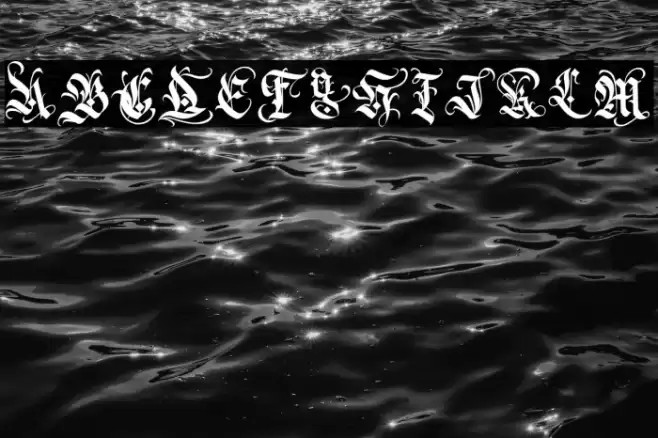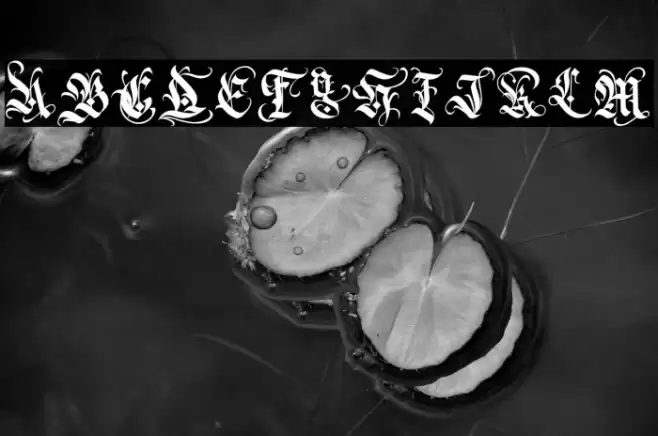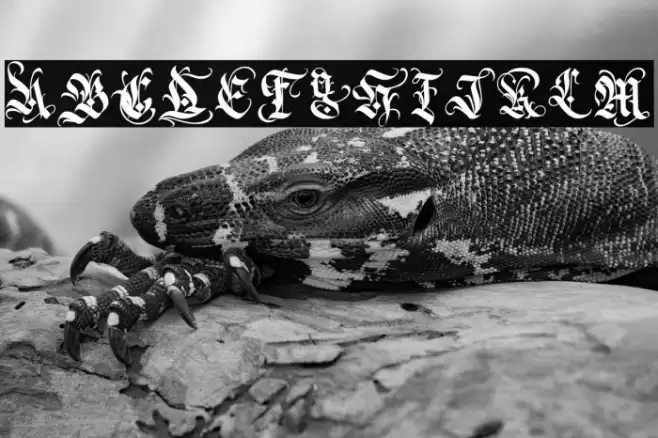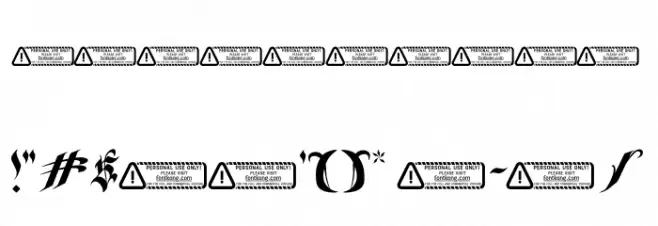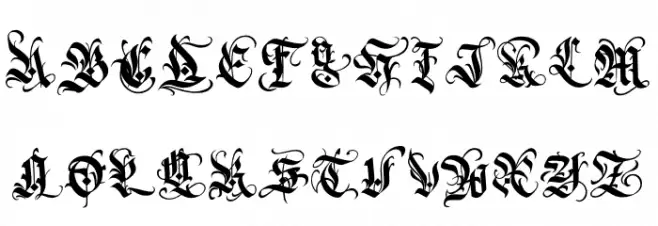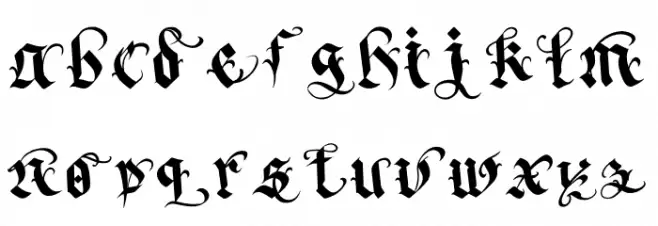
Cojira Font
Cojira Description
This font exhibits a classic blackletter style, characterized by its intricate and ornate design. The letters are bold and feature sharp, angular lines with decorative flourishes that give it a medieval appearance. The uppercase letters are particularly elaborate, with additional embellishments that enhance their gothic aesthetic. The lowercase letters maintain the same level of detail, ensuring consistency throughout the typeface. The numbers and special characters are designed to match the overall theme, making it suitable for projects that require a historical or traditional look.
A bold, ornate blackletter font with intricate details and a gothic style from Uncategorized fonts.
- Font: Cojira
- Proposed Projects: Ideal for historical documents, wedding invitations, certificates, or any project needing a medieval or gothic touch.
- Contrast: High
- Overall Style: Vintage
- Use Case: Logos, Headlines, Decorative purposes
Cojira UPPERCASE
Cojira LOWERCASE
Cojira OTHER CHARS